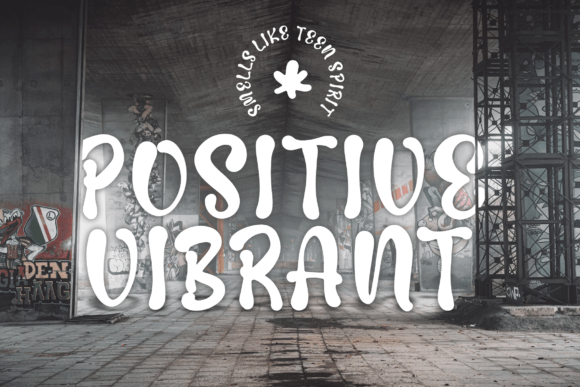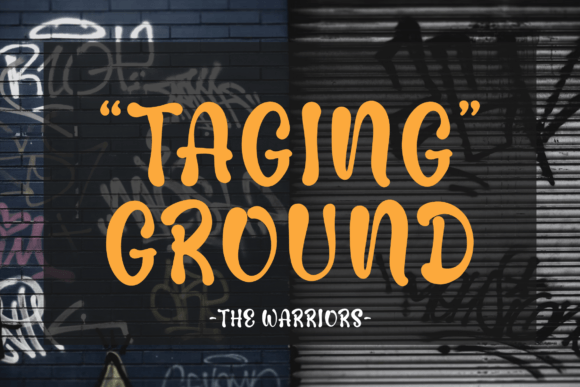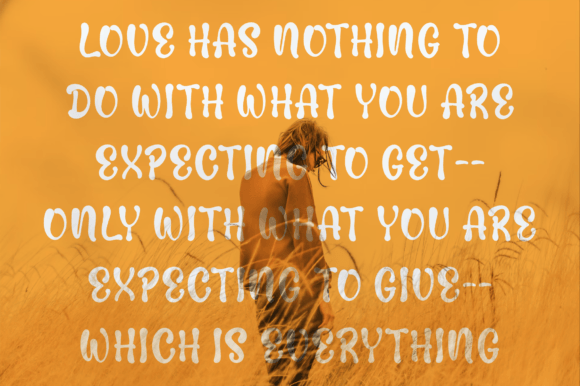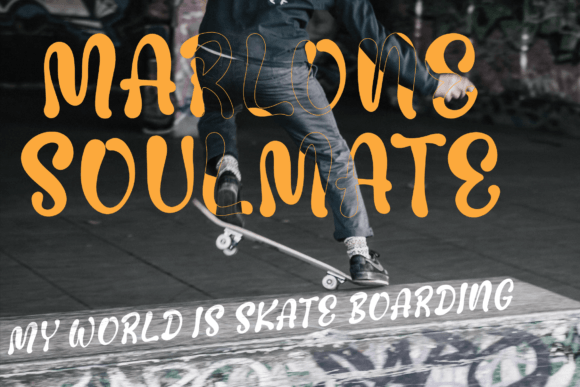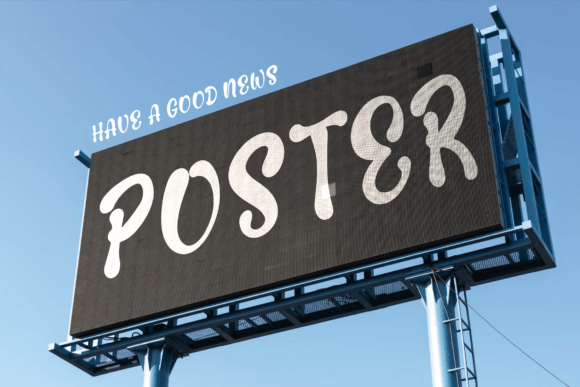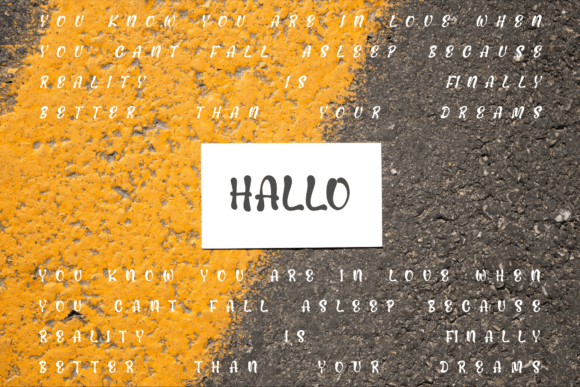
Damrush Pocket – The Ultimate Groovy Handwritten Font for Creative Projects
Are you a designer or crafter looking for a unique and stylish font to elevate your projects? Look no further than Damrush Pocket, a groovy handwritten font that’s perfect for a wide range of applications. From logos and branding projects to homeware designs, product packaging, and more, Damrush Pocket is the ideal choice for anyone seeking a beautiful script taste.
What is Damrush Pocket?
Damrush Pocket is a carefully crafted handwritten font that’s designed to add a touch of personality and style to your projects. Its unique, groovy vibe makes it perfect for creative types who want to stand out from the crowd. Whether you’re working on a logo, a poster, or a product design, Damrush Pocket is sure to make your project pop.
What Can I Use Damrush Pocket For?
The versatility of Damrush Pocket is one of its standout features. This amazing font can be used for a wide range of projects, including:
- Logos and branding projects
- Homeware designs
- Product packaging
- Mugs and water bottles
- Quotes and posters
- Shopping bags and t-shirts
- Book covers and name cards
- Invitation cards and greeting cards
- Labels and photography
- Watermarks and special events
As you can see, the possibilities are endless with Damrush Pocket. Its flexibility and style make it an essential addition to any designer’s toolkit.
Why Choose Damrush Pocket?
So why should you choose Damrush Pocket over other fonts? Here are just a few compelling reasons:
- Unique style: Damrush Pocket has a one-of-a-kind, groovy vibe that’s sure to set your projects apart.
- High-quality design: This font is carefully crafted to ensure that it’s both stylish and legible.
- Versatility: As we’ve already discussed, Damrush Pocket can be used for a wide range of projects.
Tips for Using Damrush Pocket
To get the most out of Damrush Pocket, here are a few tips to keep in mind:
- Experiment with different sizes: Damrush Pocket looks great in a variety of sizes, so don’t be afraid to experiment to find the perfect fit for your project.
- Pair it with other fonts: This font pairs well with a range of other fonts, so try combining it with different styles to create a unique look.
- Use it to add personality: Damrush Pocket is all about adding personality to your projects, so don’t be afraid to get creative and have fun with it.